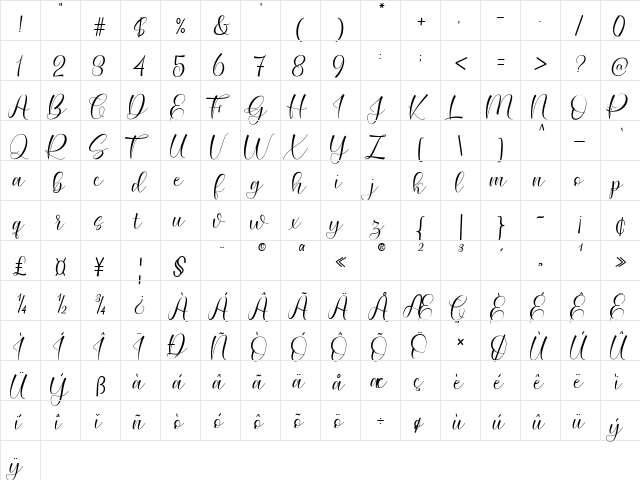
Katie Findlay Script Regular
| Foundry | Kurniadi Saputra |
| Designer | Kurniadi Saputra |
Design Context for Katie Findlay Script Typeface
Katie Findlay Script brings a calligraphic fluidity to the page — its connecting strokes and expressive curves give it an unmistakably human quality.